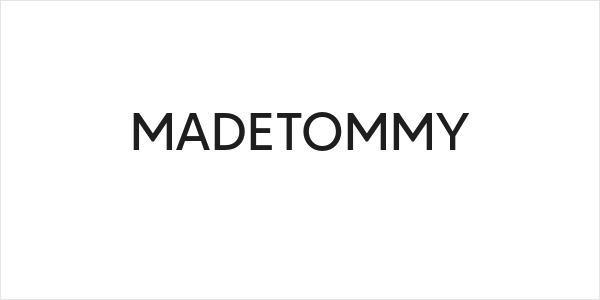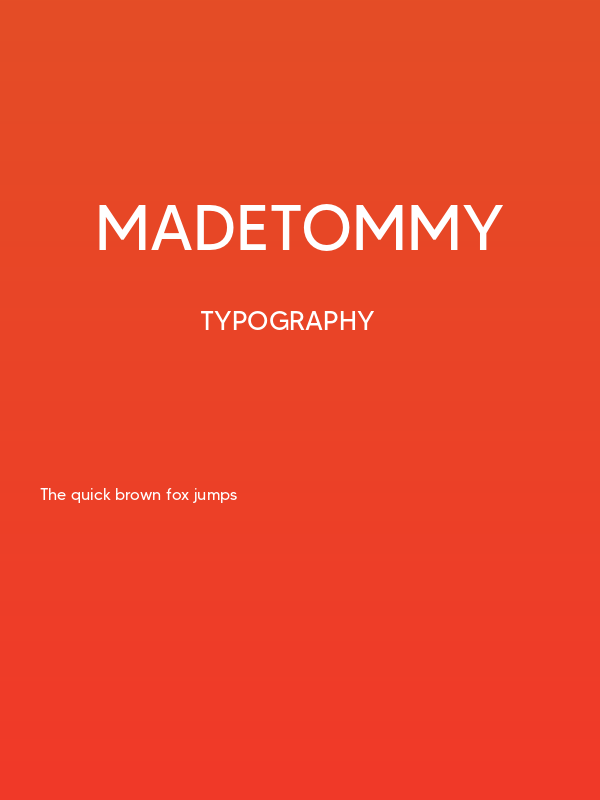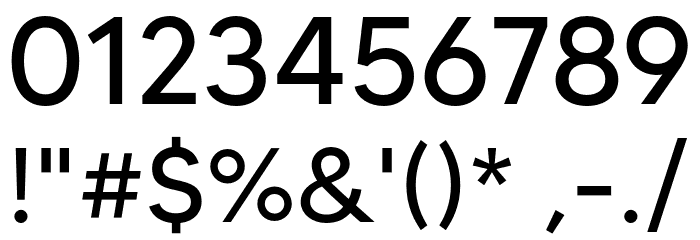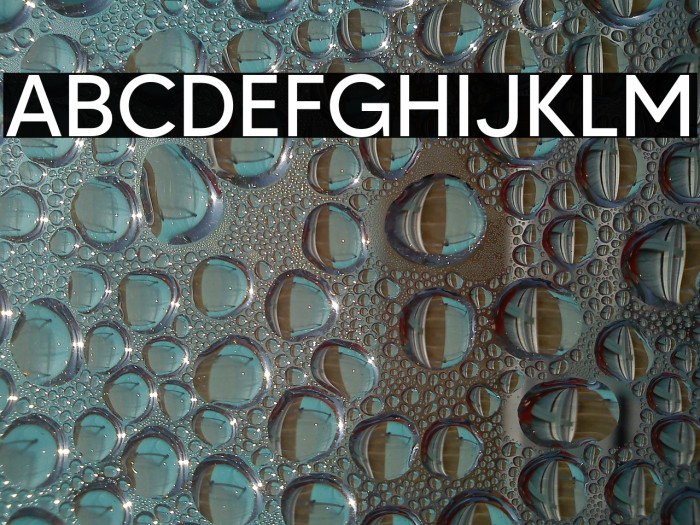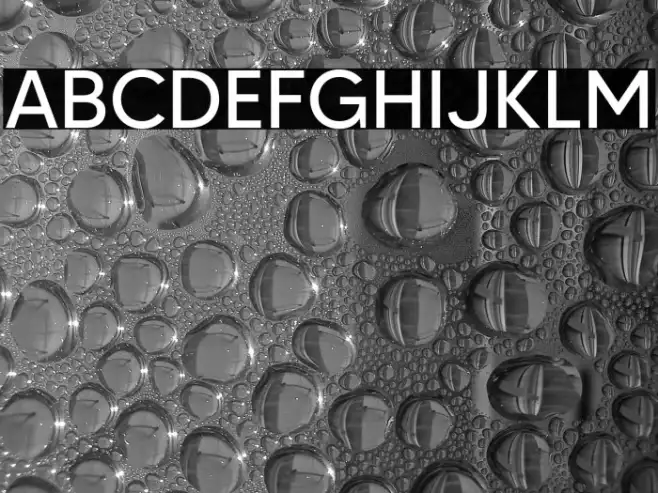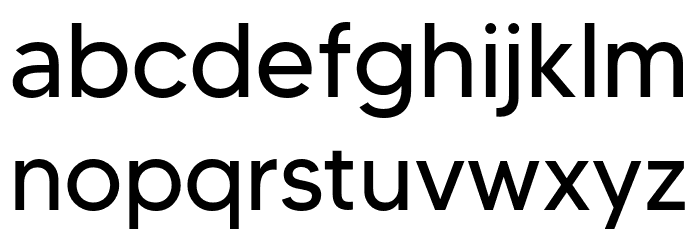
MADETOMMY Font
MADETOMMY Description
This font features a clean and modern sans-serif design, characterized by its geometric shapes and uniform stroke widths. The characters are well-balanced, offering a harmonious appearance that is both professional and approachable. Uppercase and lowercase letters are crafted with precision, ensuring readability and versatility across various applications. The numerals are clear and consistent, while the special characters maintain the font's sleek aesthetic. This typeface is ideal for digital and print media, providing a contemporary look that suits a wide range of design needs.